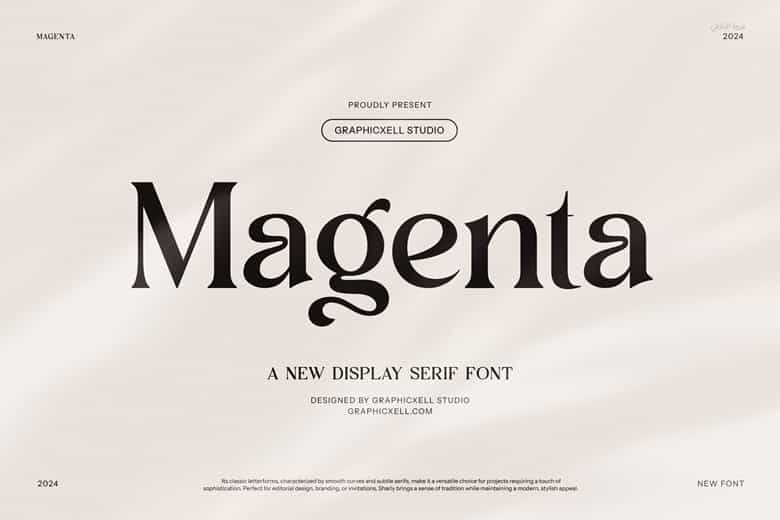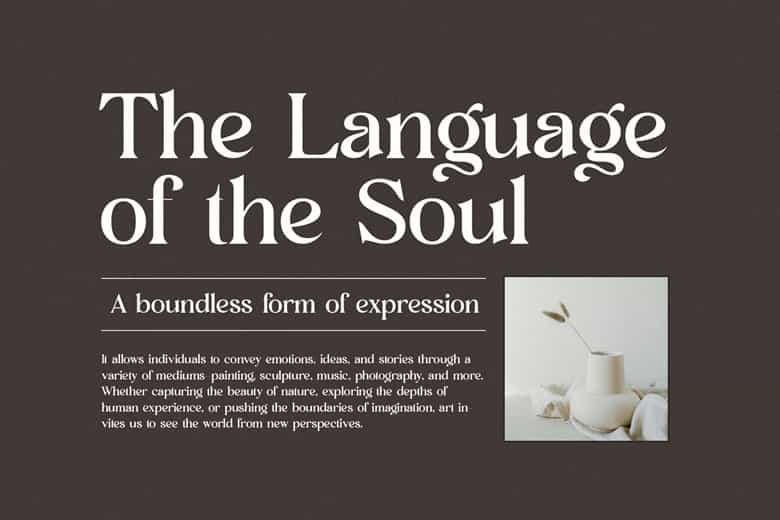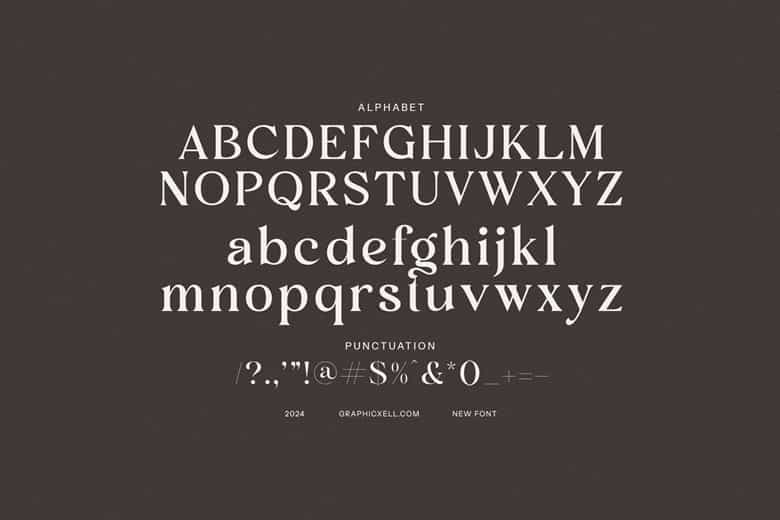
Magenta is a ligature serif typeface with good quality. Great effort has been ensured to design this typeface to ensure it produces quality and luxurious look. These ligatures make this typeface an individualistic one and different from the usual use of the regular serif font.